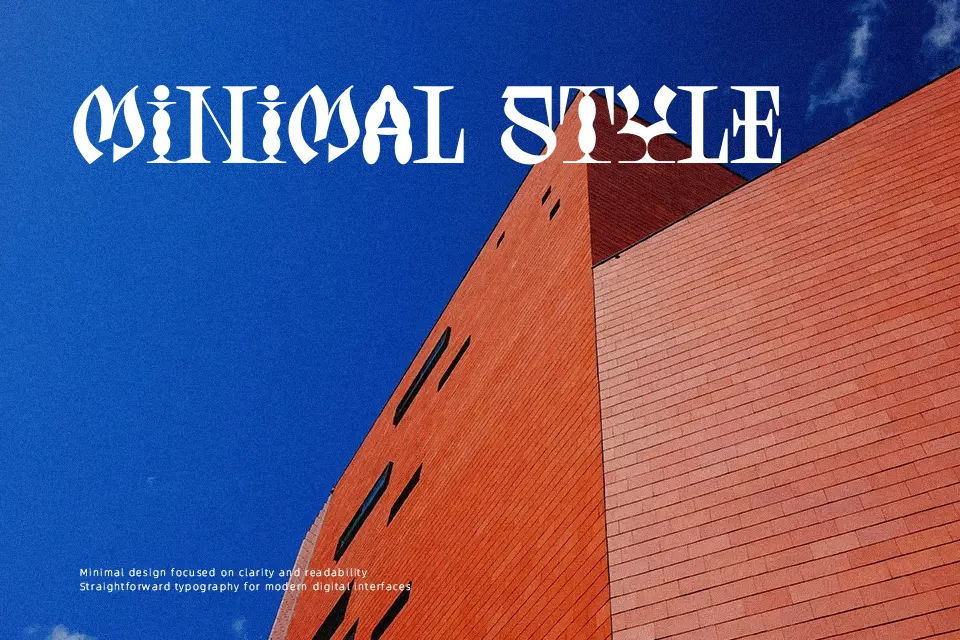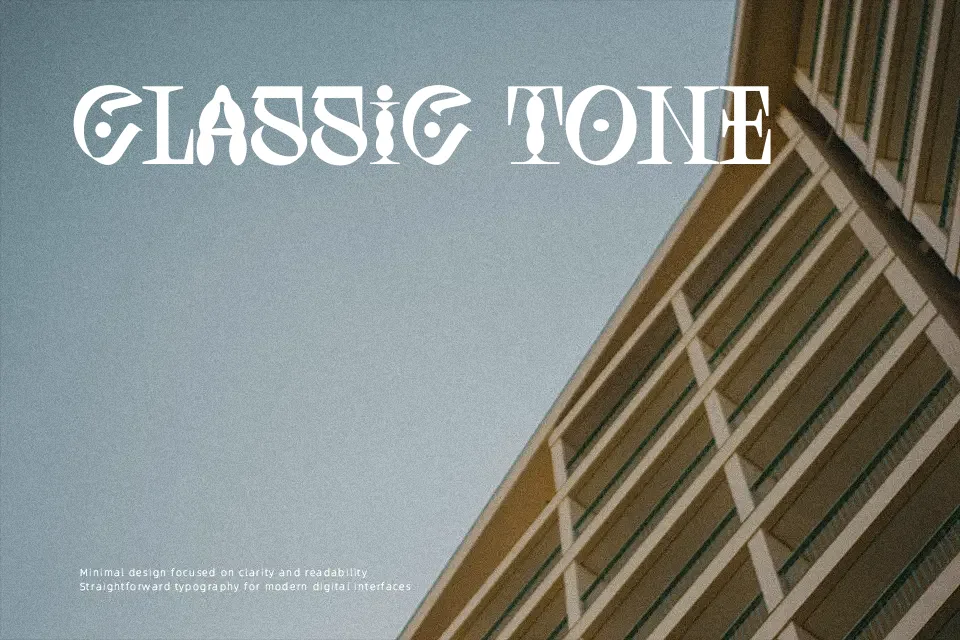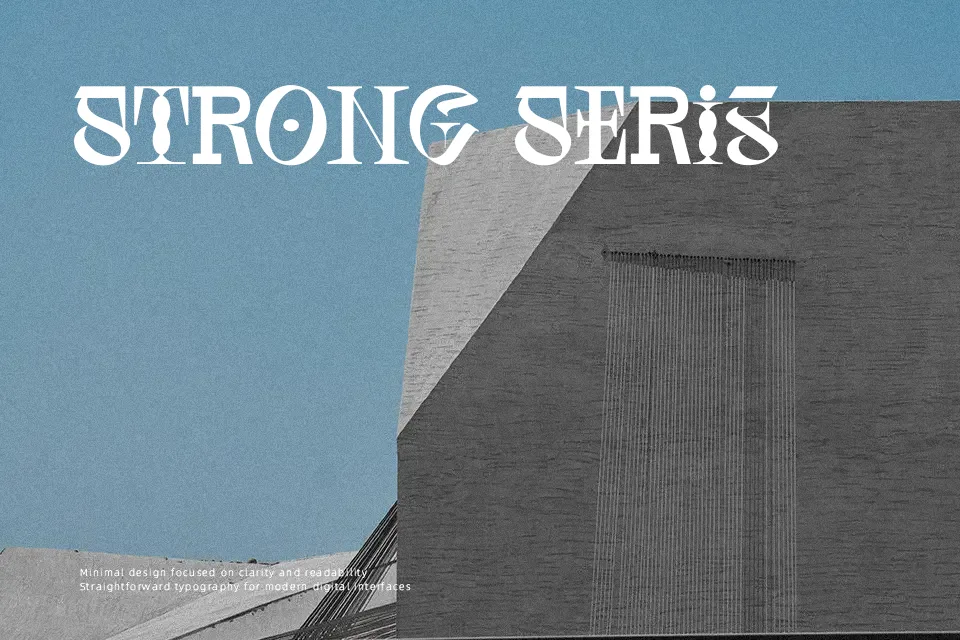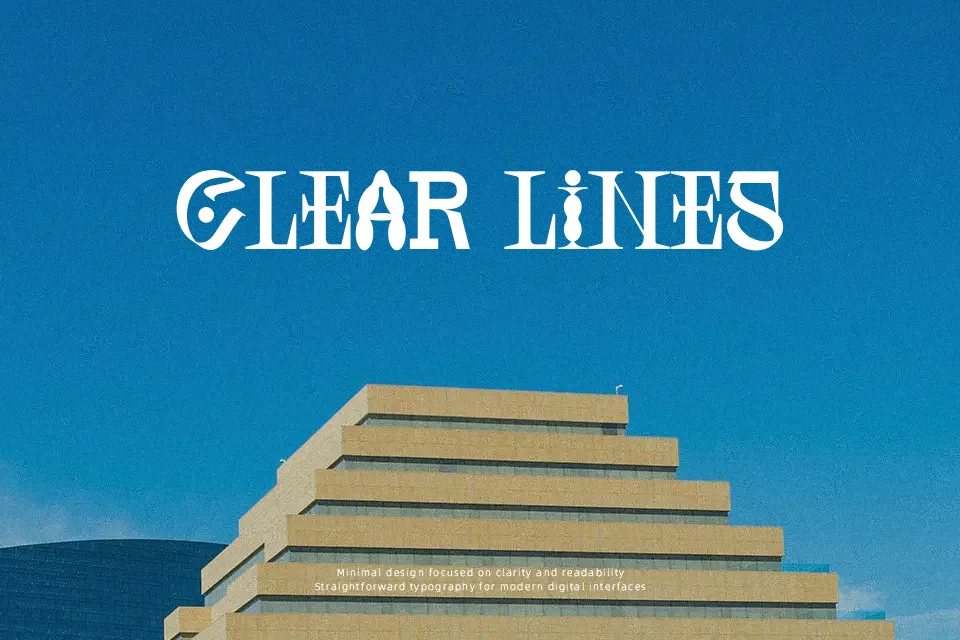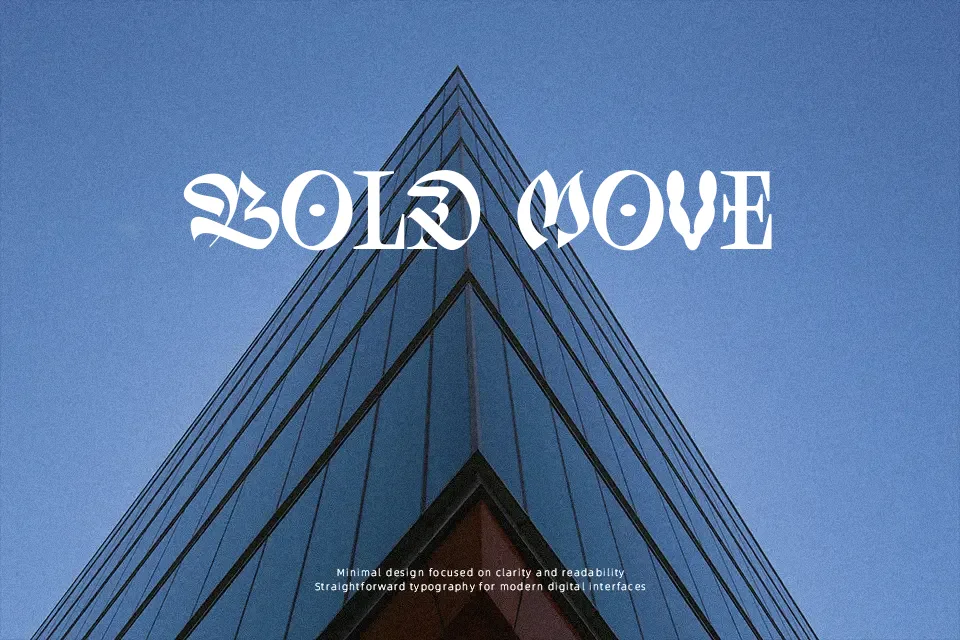
Brocky Whiesed Font
Designed by Ronny Studio
Brocky Whiesed Font pushes toward the experimental side of display typography, with exaggerated letterforms, angular cuts, and compact spacing that immediately pulls focus. The strokes feel deliberate and slightly aggressive rather than soft, which gives headlines a cinematic, high-impact tone. It works well when you treat it as a graphic element in itself on posters, apparel, key art, or album covers where you only need a few intense words, not paragraphs of copy. For long text blocks, small sizes, or highly formal corporate communication, the shapes become fatiguing and can feel too stylized. In practice, it behaves closer to an experimental movie-poster or music-brand font than a general-purpose display face.
Edgy music or movie posters and cover art
Streetwear or experimental branding locks with few words
Attention-grabbing social media title cards and promos
Body text or content-heavy layouts at small sizes
Formal corporate presentations or conservative brands
Interfaces or documents that demand quick readability
Perfect for branding, film, and music, with a artistic and decorative style.